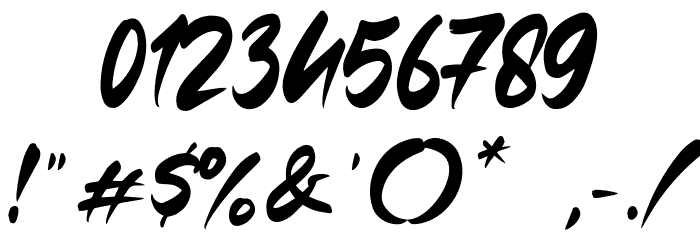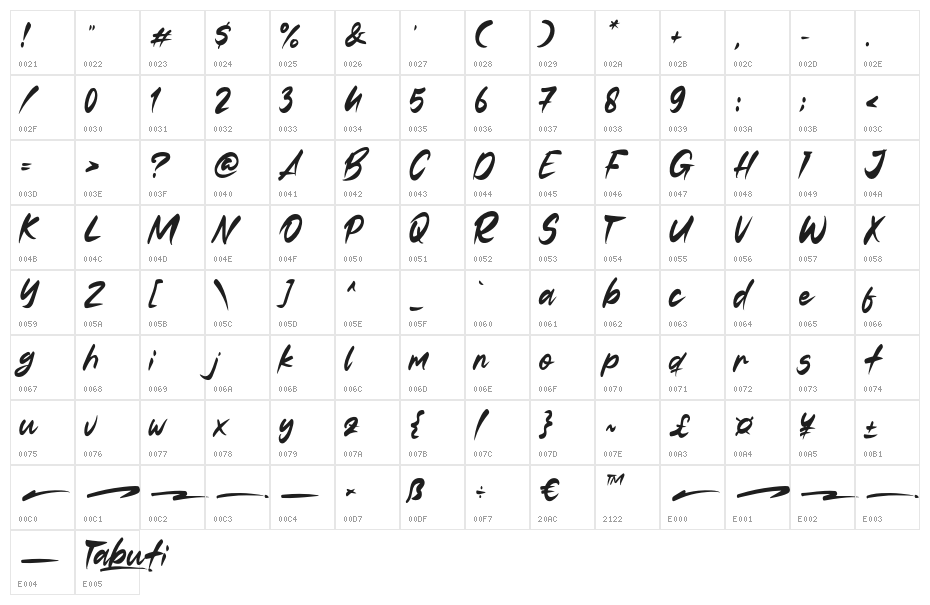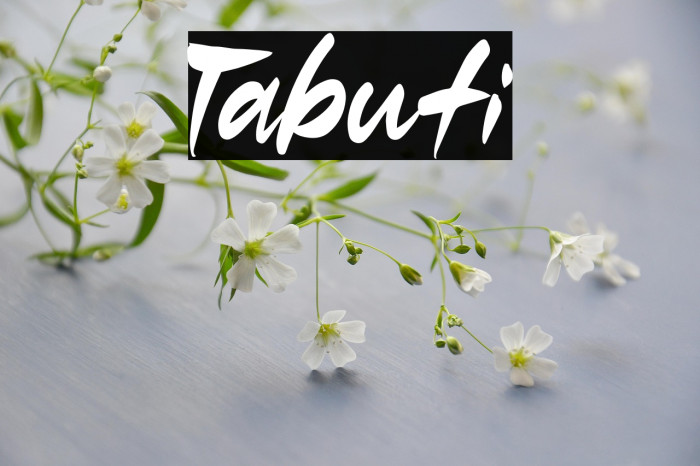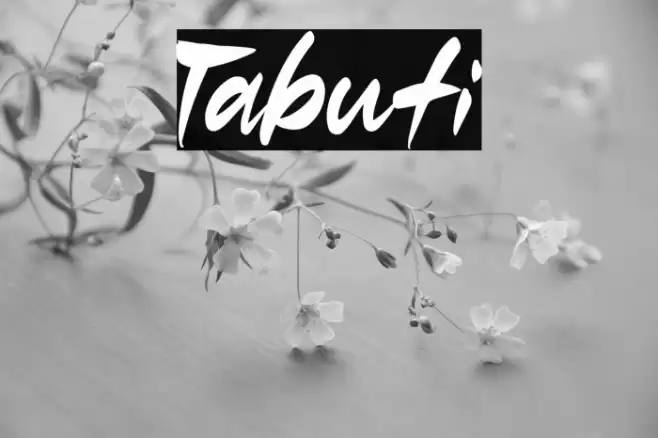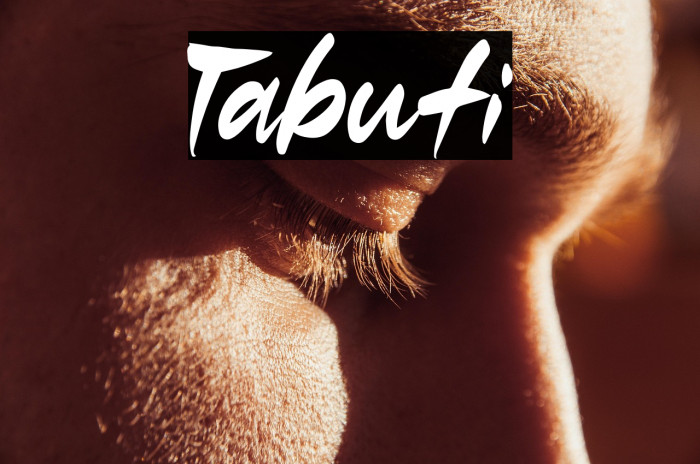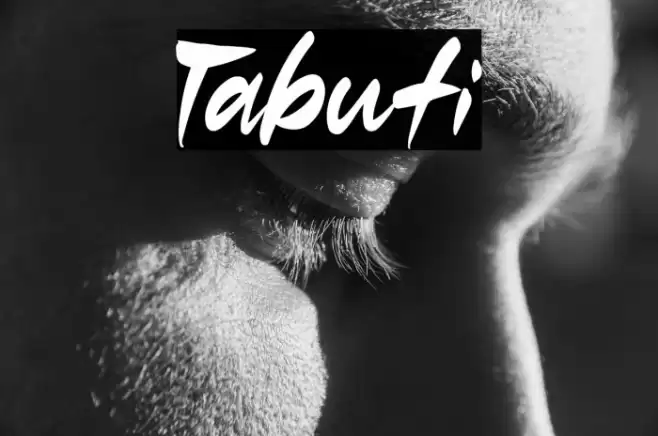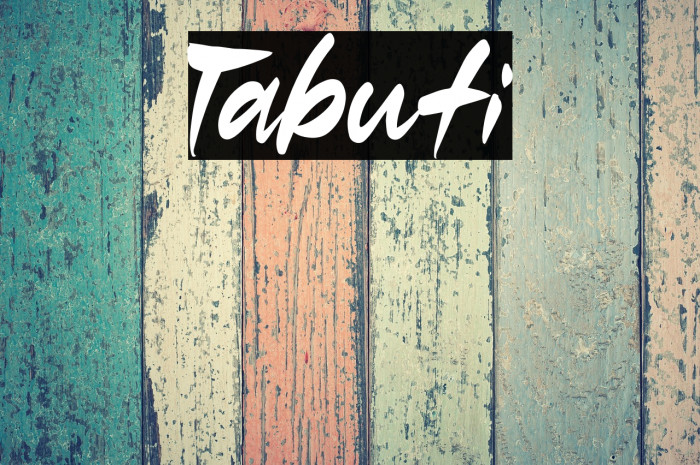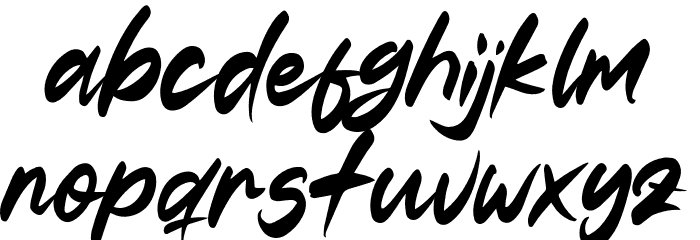
Tabuti Font
Tabuti Description
This font exudes a dynamic and energetic vibe, characterized by its bold, sweeping strokes and a handwritten style that suggests a sense of motion and fluidity. The letters are slightly slanted, adding to the impression of speed and spontaneity. The uppercase and lowercase characters maintain a consistent style, with a playful yet sophisticated appearance. The numerals and special characters complement the overall design, ensuring versatility across different uses. The font's boldness and unique character make it stand out, ideal for projects that require a personal touch or a statement piece.